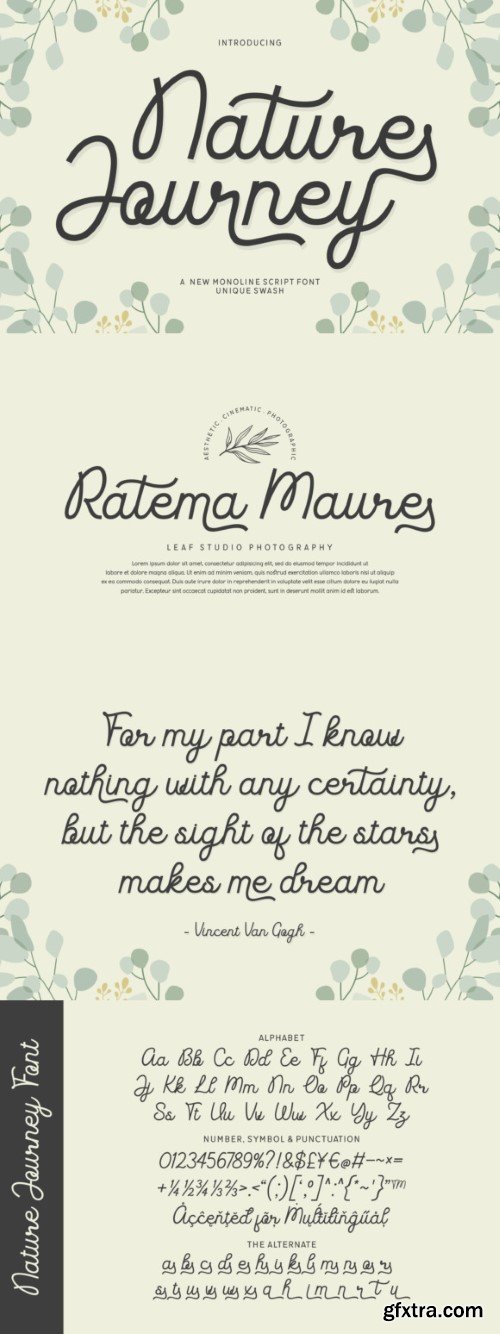
Nature Journey is a smooth and elegant monoline script font inspired by the beauty of the natural world. With its flowing strokes and unique swashes, this font adds a charming and organic touch to your designs. Perfect for eco-friendly brands, travel-themed projects, nature-inspired quotes, invitations, and logos, Nature Journey brings the essence of adventure and the outdoors to life.